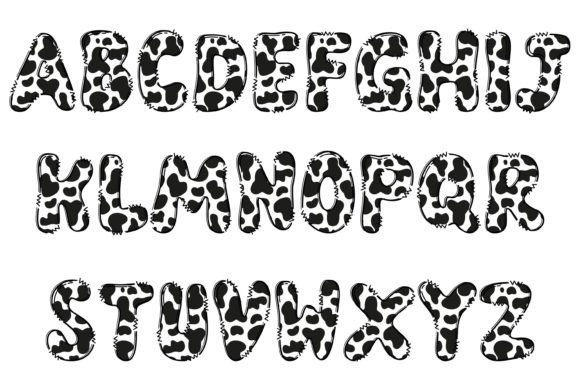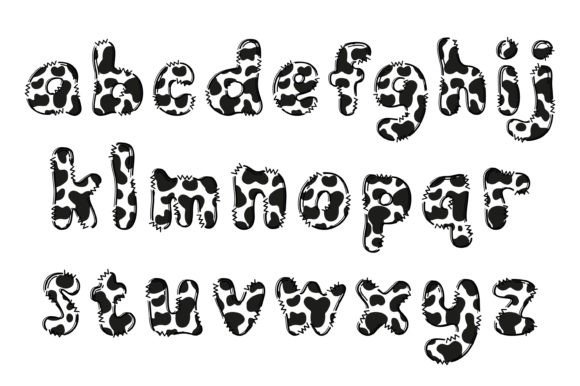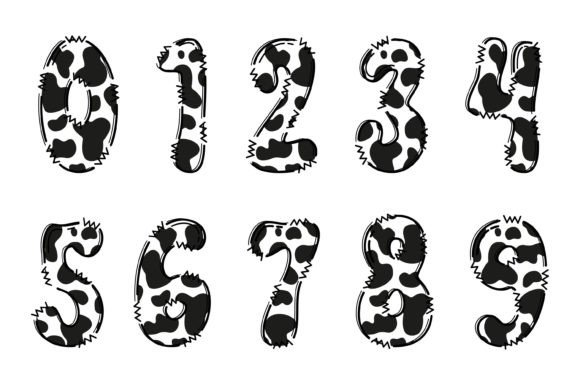
Cow Font: A Playful and Artistic Typeface for Designers and Crafters
Are you looking for a font that can add a touch of playfulness and whimsy to your designs? Look no further than the Cow Font! This delightful typeface is perfect for designers and crafters who want to create engaging and artistic projects, such as children’s books, posters, invitations, greeting cards, and more.
What is Cow Font?
Cow Font is a unique and charming typeface that features a distinctive, hand-drawn design. The font comes in two versions: a black version and a color version. The black version is perfect for designs that require a bold and striking look, while the color version offers a range of vibrant colors that can add an extra layer of creativity to your projects.
Uses of Cow Font
These fonts are often used in designs that aim to convey a playful or artistic feel, such as:
• Children’s books: Cow Font is perfect for creating engaging and interactive stories for young readers. The font’s whimsical design and bright colors make it easy to read and fun to look at.
• Posters: Add a playful touch to your posters with Cow Font. The font’s bold and colorful design makes it perfect for grabbing attention and conveying a message.
• Invitations: Create unique and eye-catching invitations for parties, events, and celebrations with Cow Font.
• Greeting cards: Add a personal touch to your greeting cards with Cow Font. The font’s playful design makes it perfect for birthdays, holidays, and other special occasions.
Tips for Using Cow Font
Here are some tips for using Cow Font in your designs:
• Experiment with different colors: The color version of Cow Font offers a range of vibrant colors that can add an extra layer of creativity to your designs.
• Mix and match: Combine Cow Font with other fonts and design elements to create unique and eye-catching designs.
• Keep it simple: Don’t be afraid to keep your design simple and clean. Cow Font’s playful design can shine on its own or paired with a few simple graphics.
Cow Font is a playful and artistic typeface that is perfect for designers and crafters who want to add a touch of whimsy to their designs. With its bold and colorful design, Cow Font is perfect for a range of projects, from children’s books to posters and invitations. Whether you’re a seasoned designer or a DIY enthusiast, Cow Font is a great addition to your font collection.